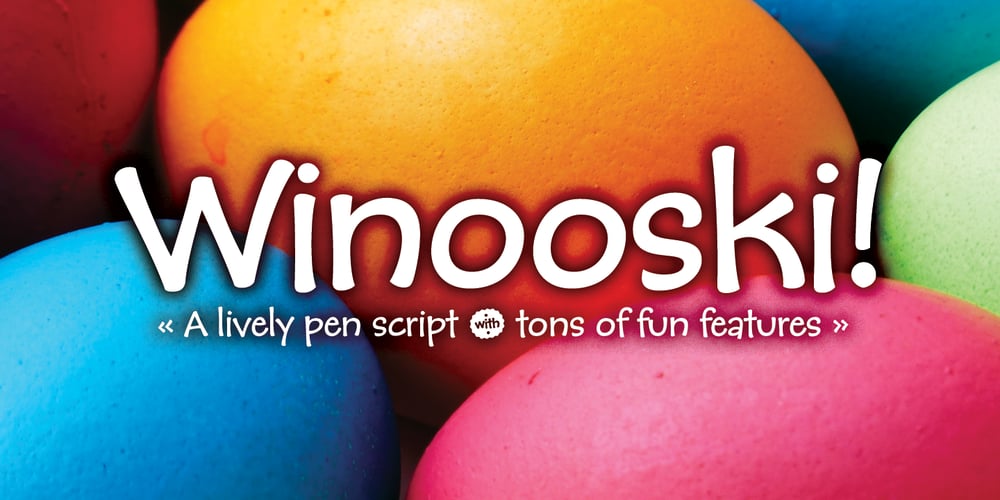
Winooski
Winooski font
Winooski Font Family was designed by Charles Gibbons and published by Oddsorts. Winooski contains 1 styles and family package options. A little goofy, a little nerdy, Winooski mixes loose pen-drawn gestures with legible forms to deliver a playful workhorse. It’s packed with goodies like small caps, ligatures, case-sensitive alternates, and broad linguistic support. It also sports extras like two styles of catchwords that can be fired up by flanking the desired word with either asterisks or underscores and discretionary ligatures for pricing. There are even easter eggs in the OpenType features for the scavenger hunters among us.